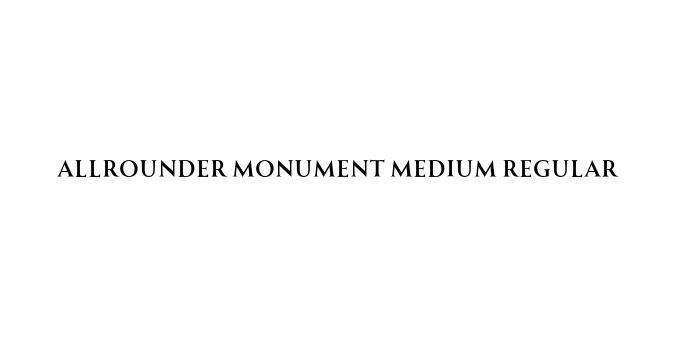
Allrounder Monument Medium Regular
Designed by Moritz Kleinsorge
| Category | Display Serif |
Allrounder Monument Medium Regular is a sophisticated display typeface designed by Moritz Kleinsorge as part of the extensive Allrounder superfamily. Inspired by the timeless Capitalis Monumentalis inscriptions found on the Trajan Column in Rome, this typeface captures the essence of classical authority and architectural precision. The Medium Regular weight offers a perfect balance between legibility and decorative flair, making it ideal for high-end branding and editorial design.
The design features wide proportions, sharp serifs, and a high contrast that commands attention in any layout. It was meticulously crafted to ensure each character carries a sense of history and permanence. Whether used in print or digital media, Allrounder Monument excels in contexts where a touch of prestige and elegance is required, bridging the gap between ancient Roman letterforms and contemporary typographic needs.
Allrounder Monument Medium Regular Best Uses
Perfect for magazine mastheads and high-fashion spreads.
Ideal for luxury logos and corporate identity systems.
Adds a premium feel to cosmetics and high-end spirits labels.
Creates striking and authoritative titles for web and print media.